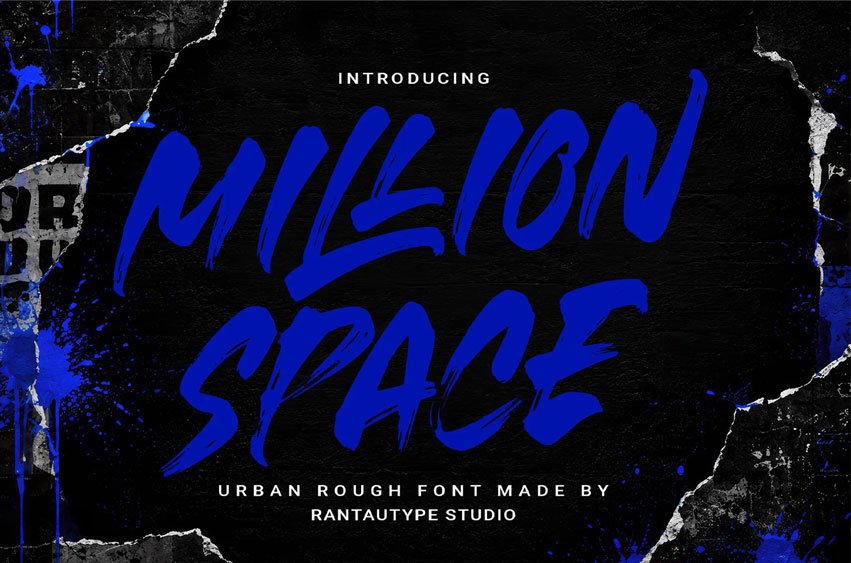
Million Space Font is a bold, high-energy brush font that captures the raw spirit of urban creativity and modern street culture. Designed with expressive hand-painted strokes, this typeface combines the freedom of graffiti-inspired lettering with the confidence of contemporary branding.
Million space is a perfectly choice for any creative endeavor, creating, modern, lifestyle design such as logotype, title, cover, branding, display and magazine, social media posts, advertisements, printed quotes, product packaging, corporate brand, product designs, labels, photography, watermarks, special events and any other project with urban touch.